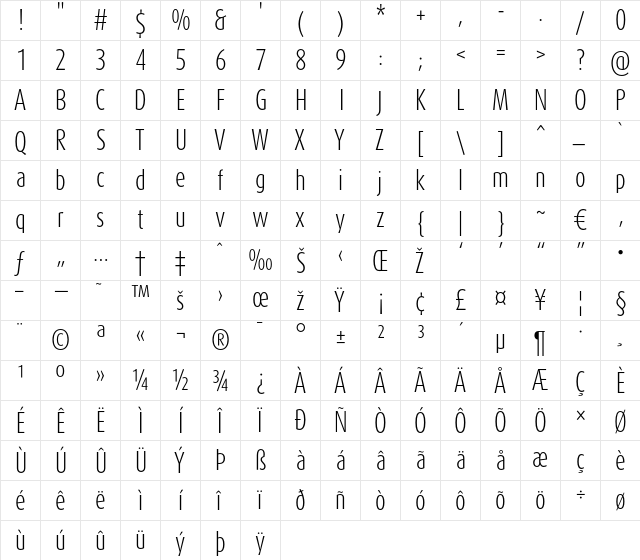
DaxCompact-Light Regular
Design Context for DaxCompact-Light Typeface
DaxCompact-Light takes a measured approach to typography — its balanced proportions and neutral character make it a reliable workhorse for both digital and print work. The delicate stroke weight brings airiness and refinement to layouts. Its narrow stance lets it pack a punch even in space-constrained designs.